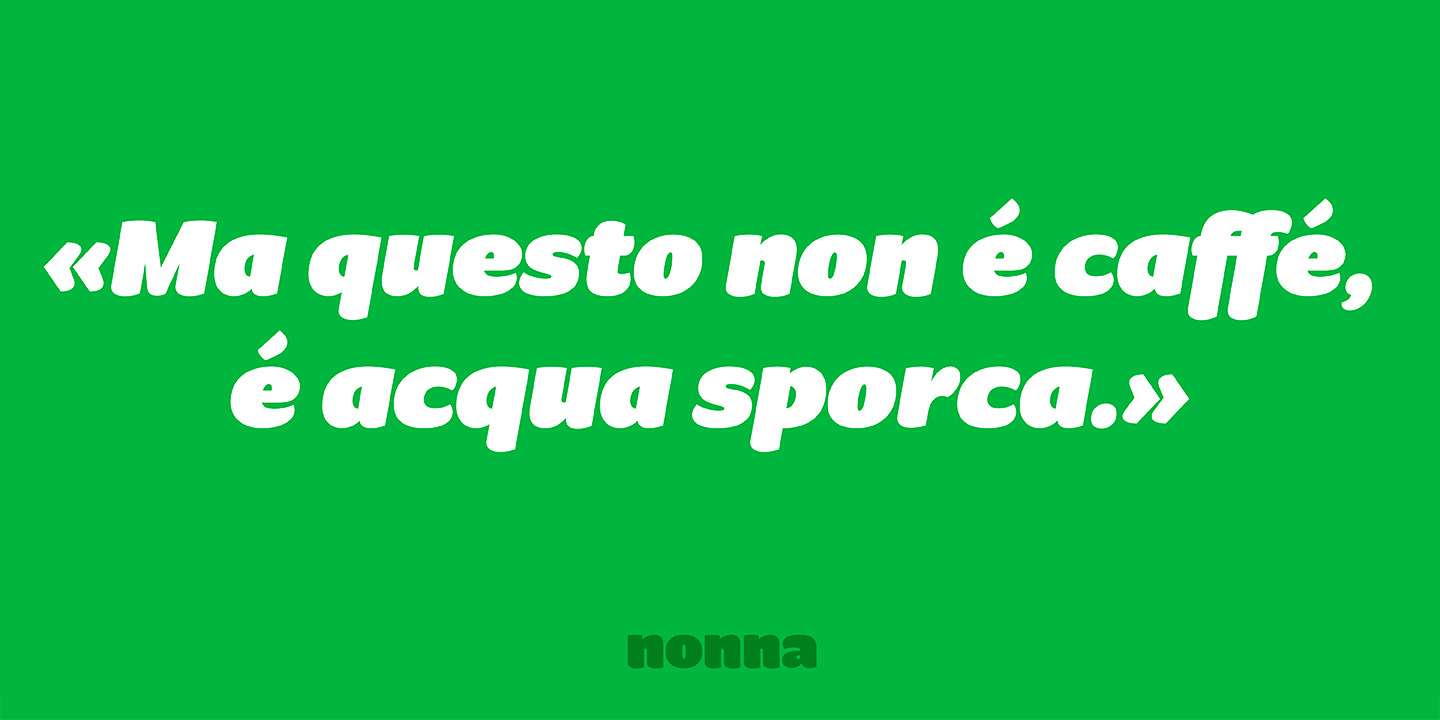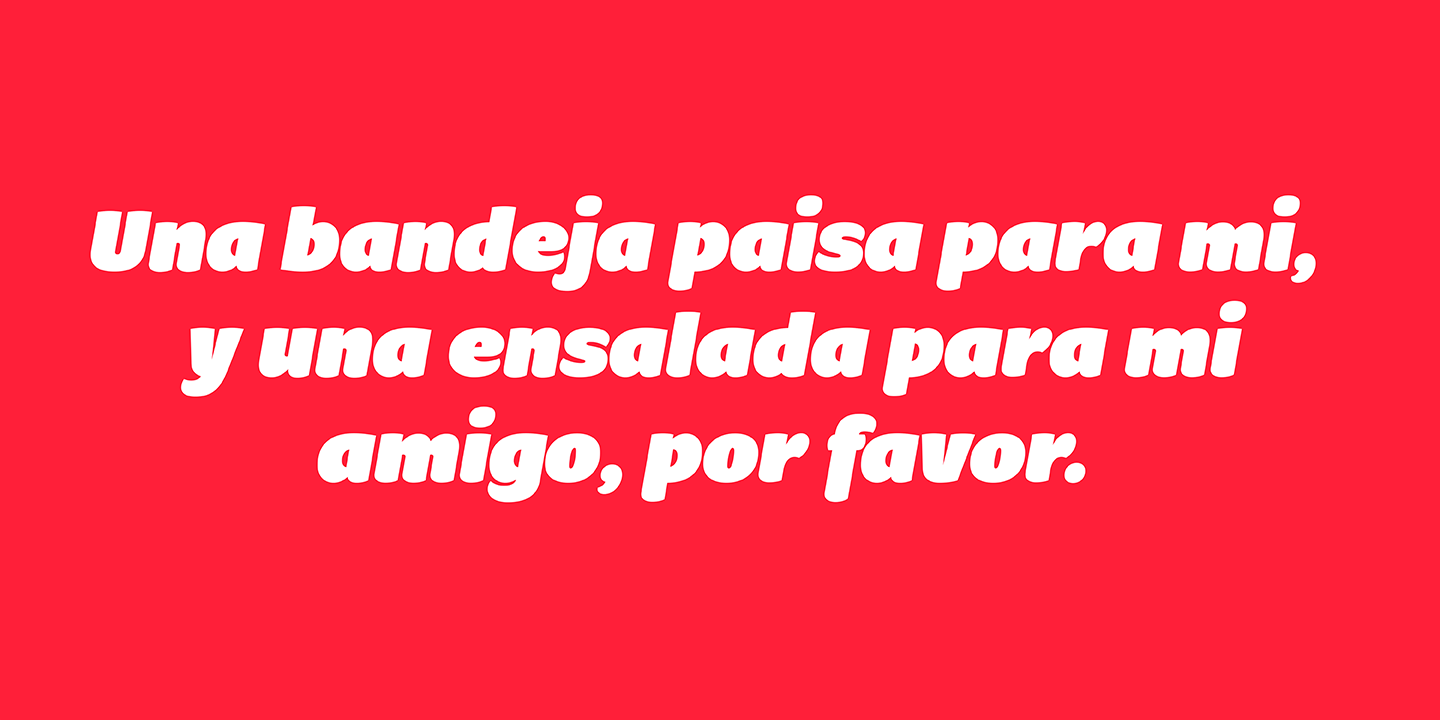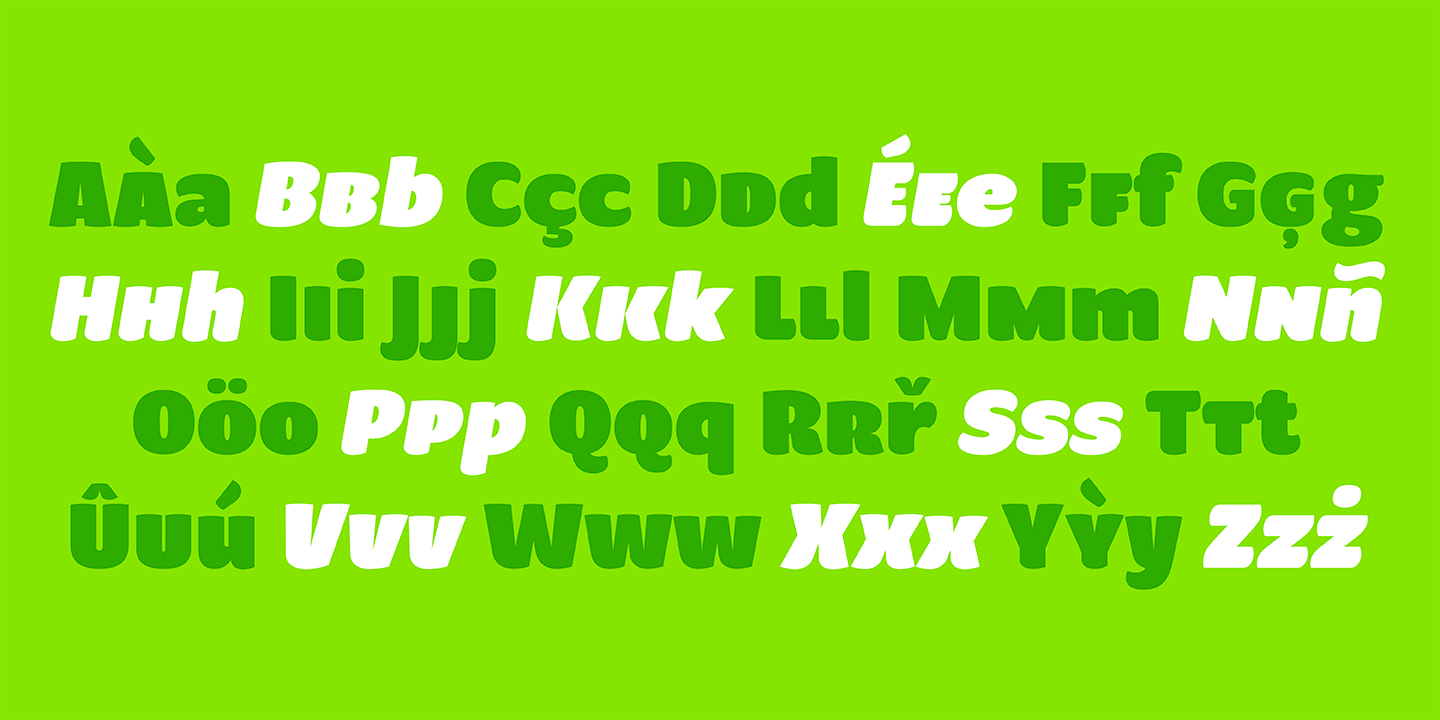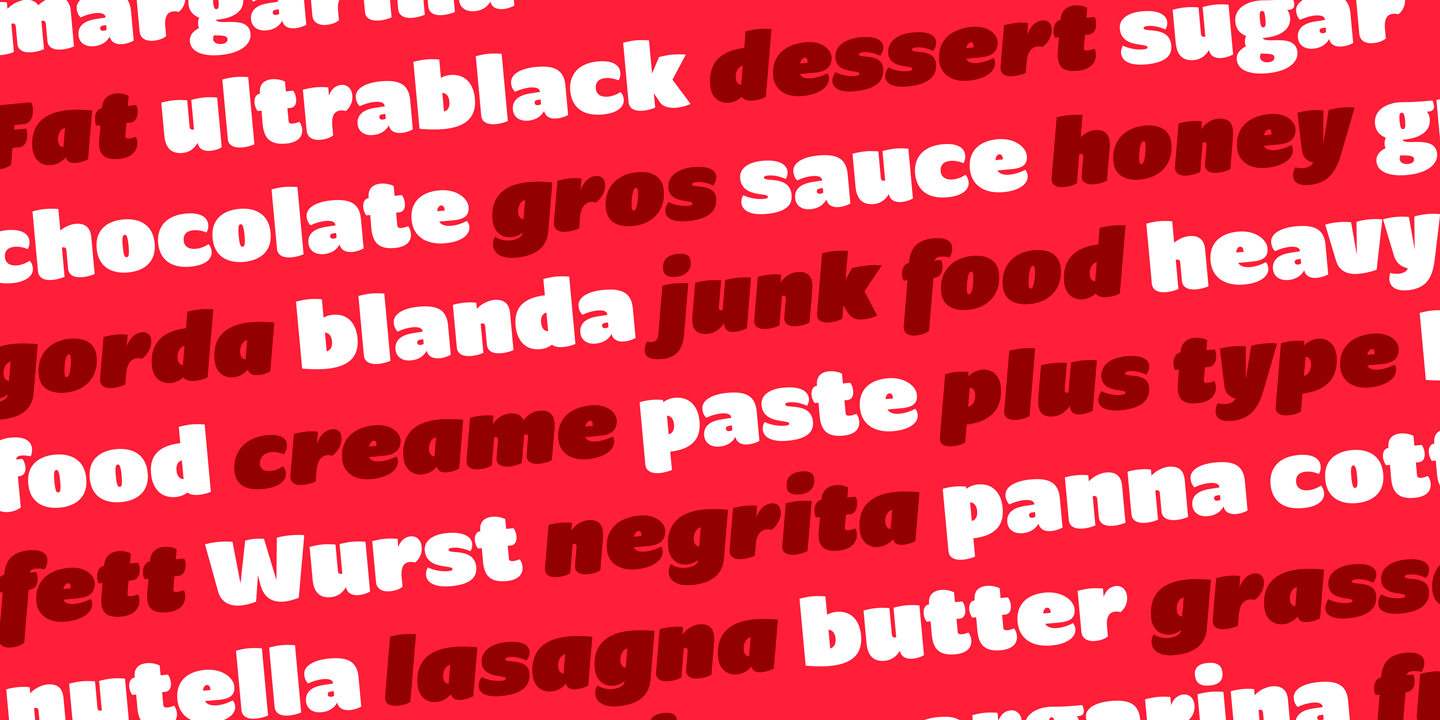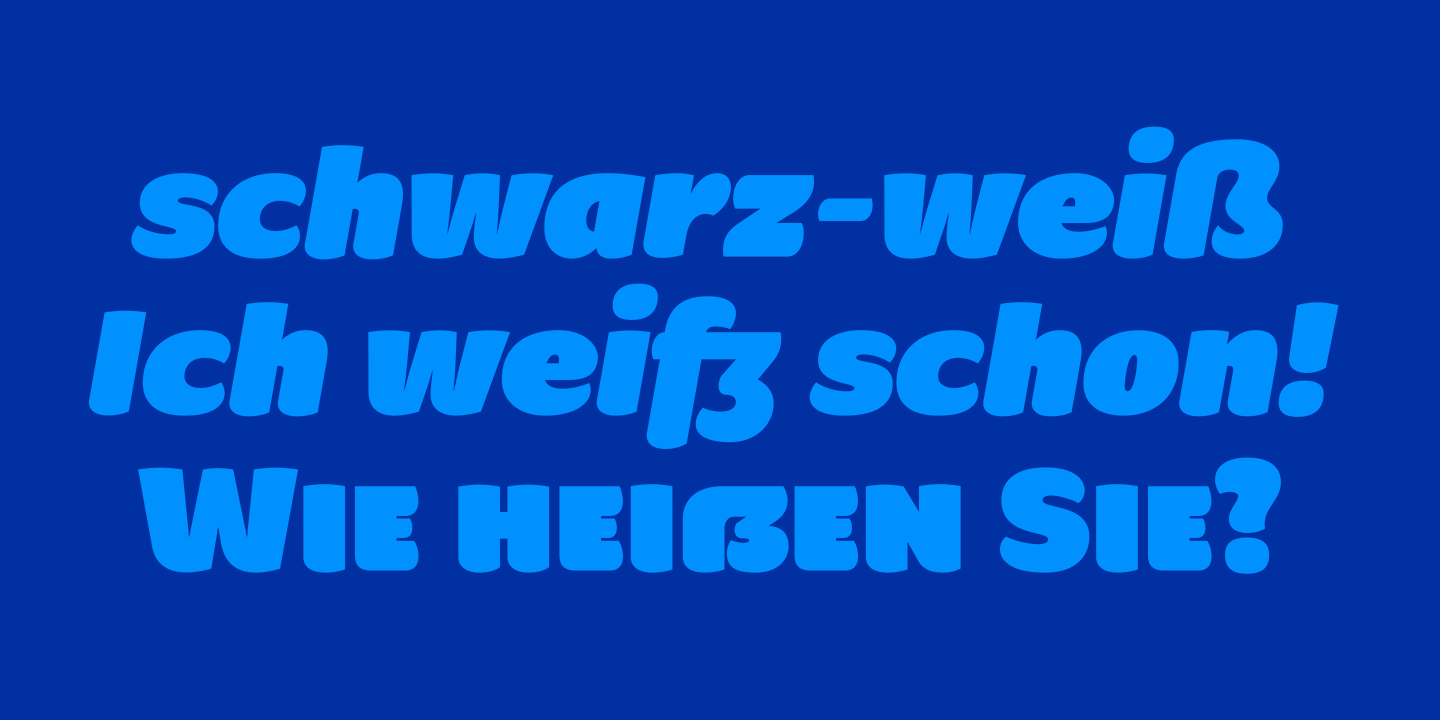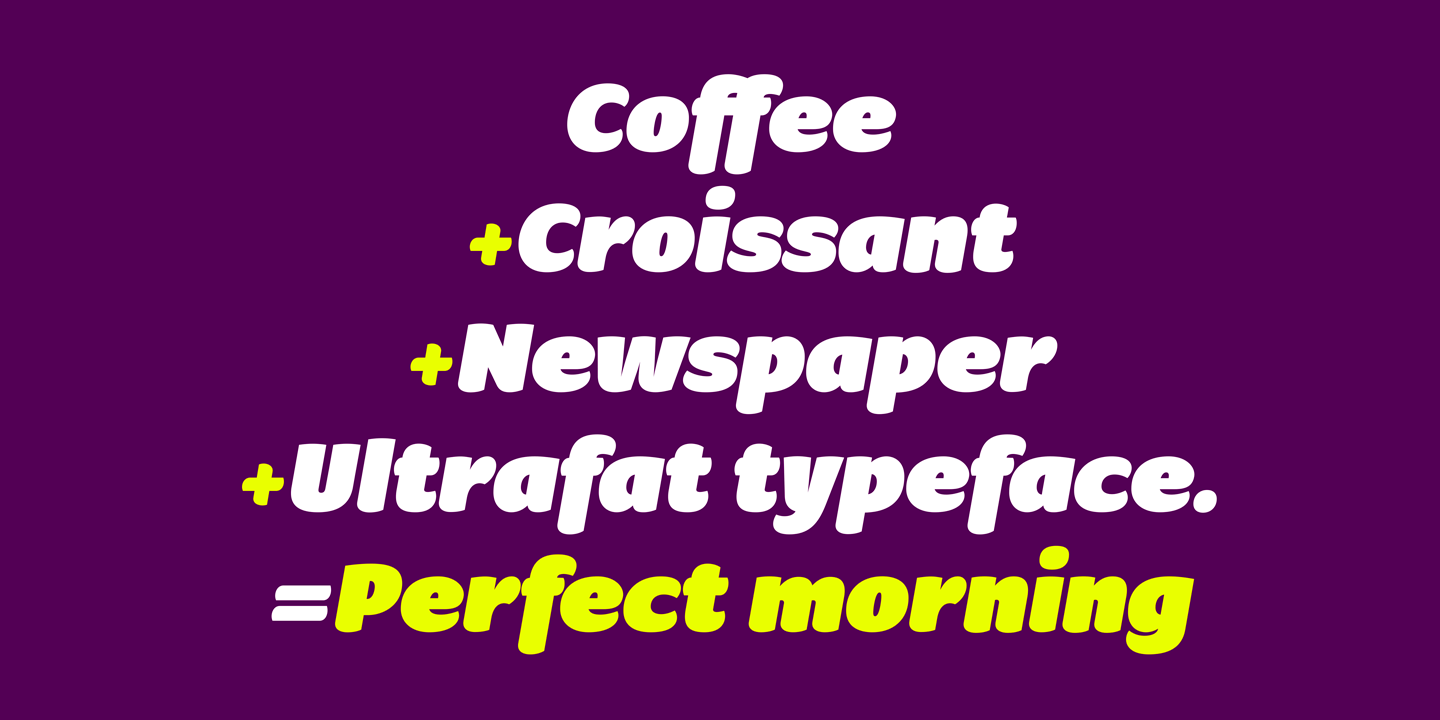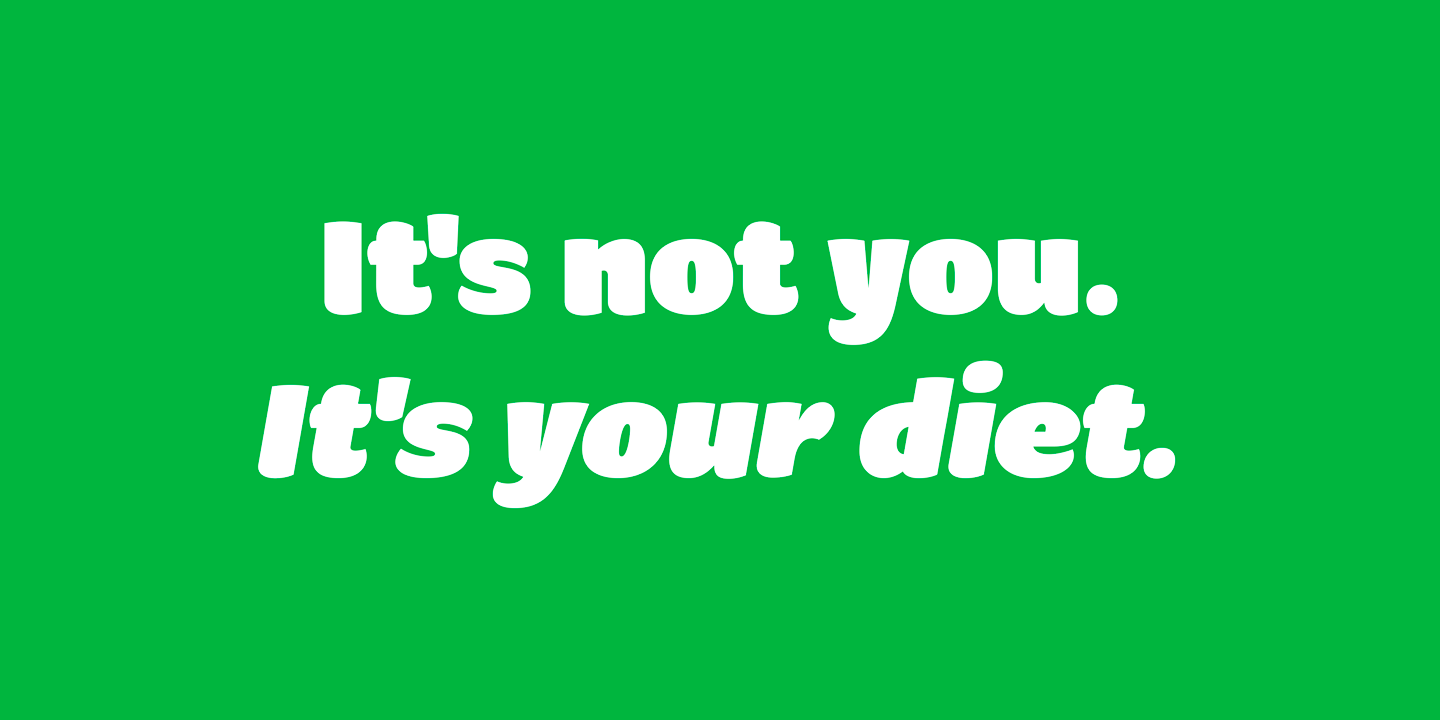
About Condell Bio Poster
Condell Bio Poster is part of the bigger Condell family: a project who involves series of typographies who started to be conceived and developed since 2006. It also includes a bigger legibility version and a sans serif. Condell Bio is very versatile and…